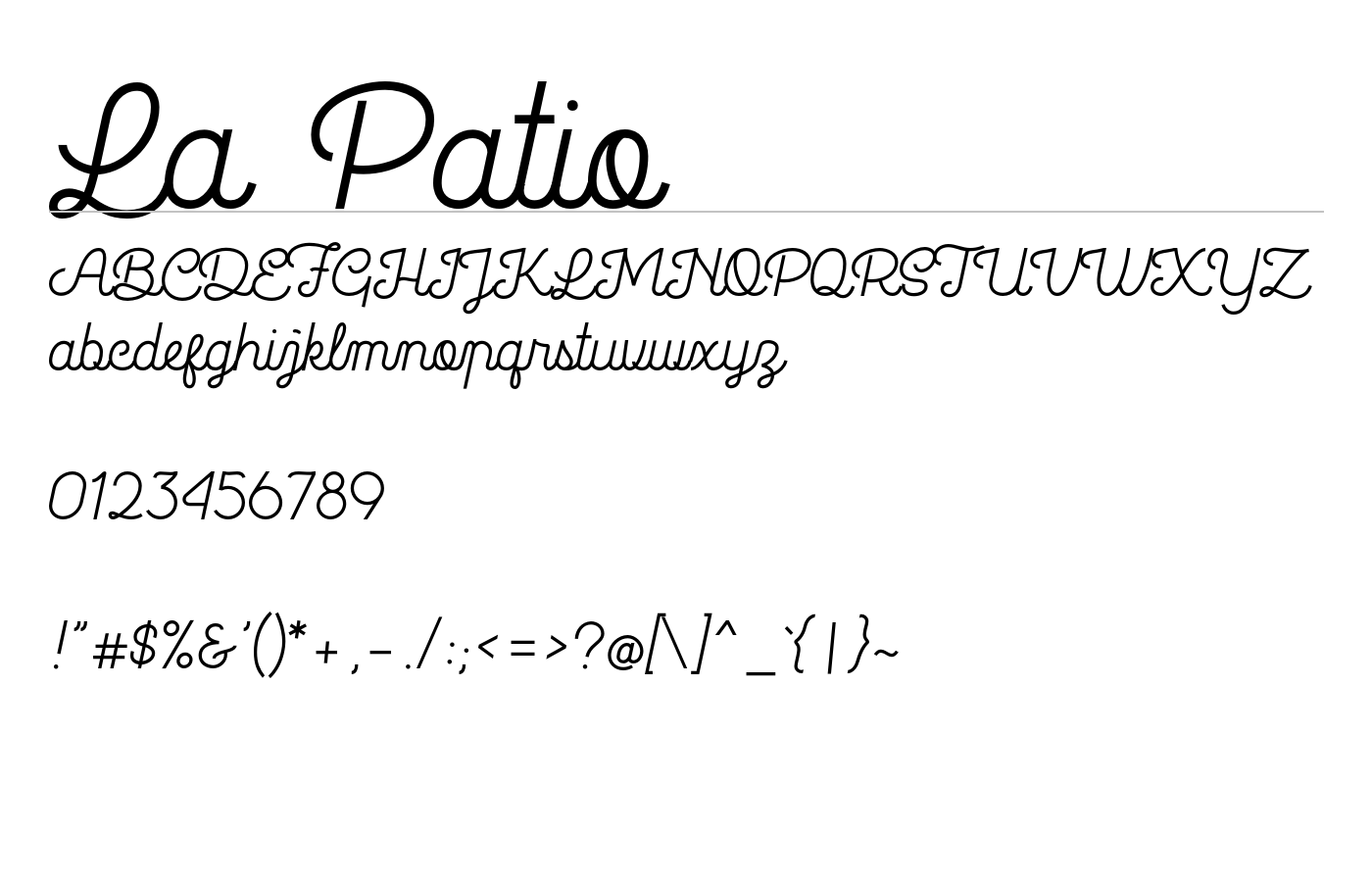
La Patio Script is a delicate and elegant script font with slender, flowing letterforms that convey a refined and graceful personality. Its light weight and smooth, continuous strokes make it ideal for designs that require a sophisticated, handwritten touch, such as invitations, branding, and fashion-related projects. This font excels in adding a vintage charm and a personal feel, perfect for headlines and decorative text where elegance and readability are key.